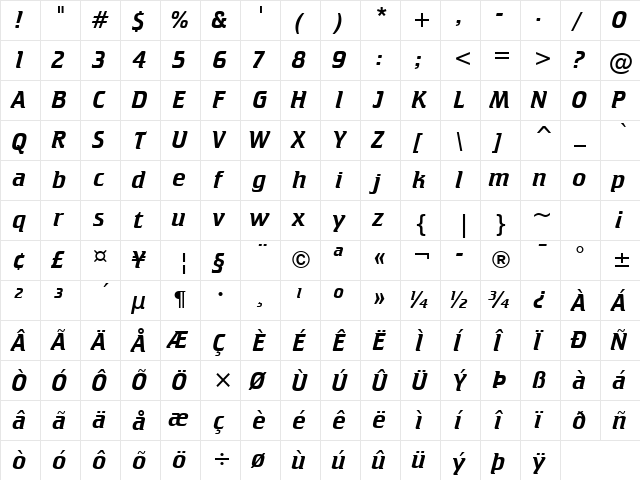
Crillee It BT Italic
Design Context for Crillee It BT Typeface
Crillee It BT takes a measured approach to typography — its balanced proportions and neutral character make it a reliable workhorse for both digital and print work. The dynamic lean of this cut emphasises speed and emphasis in any layout.
Pro Tip: Use Crillee It BT for emphasis, pull quotes, and subheadings where its slanted energy can add rhythm to the layout.